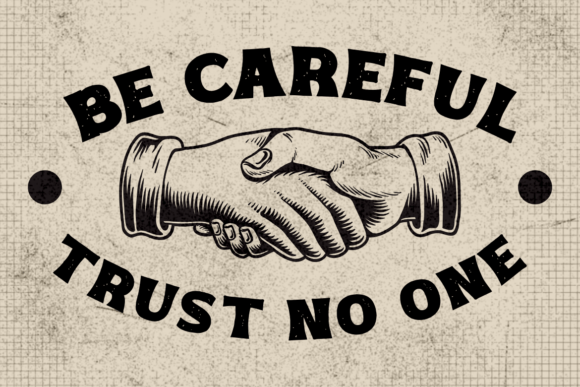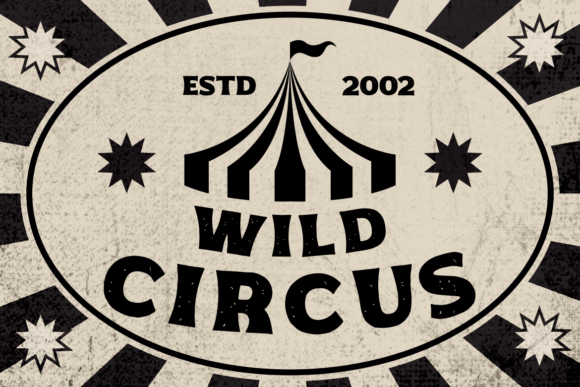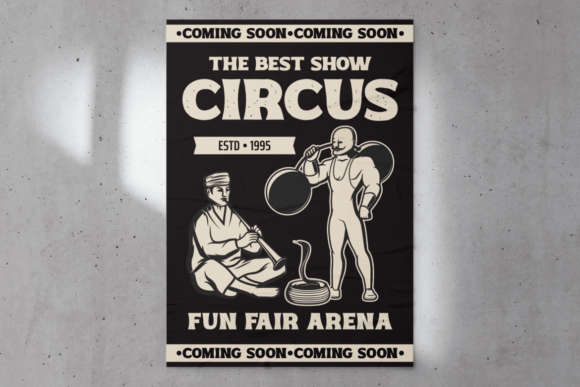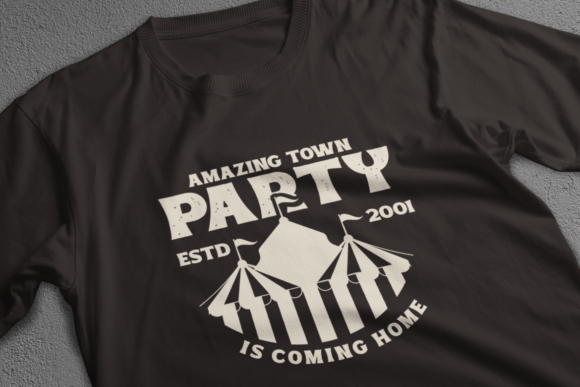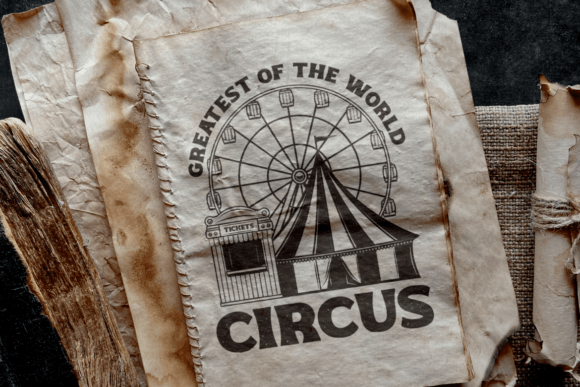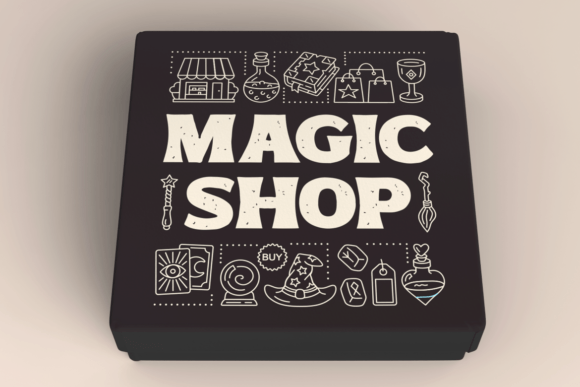
Introduction to Holy Golden Font
The Holy Golden – Bold Retro And Classic Font is a robust typeface that effortlessly blends retro charm with classic elegance.
It offers two versions to choose from: a clean version and a rough, textured variant With its nostalgic and classic aesthetic, this font brings out the vintage vibes in any design.
Key Features of Holy Golden Font